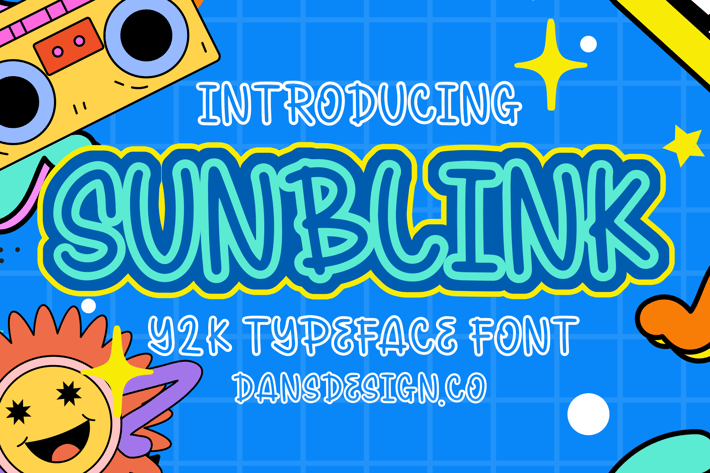
Sunblink Cute Graffiti Y2K Font
Sunblink Cute Graffiti Y2K Font a distinct, highly detailed. GRAFFITI Y2k Display Font.
It would make a great choice for exquisite retro-urban designs, business branding, logos, Apparel designs, and more.